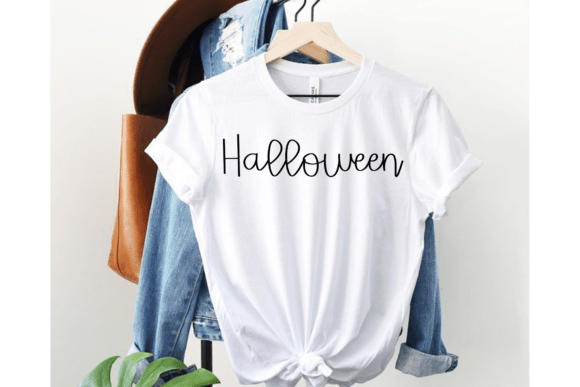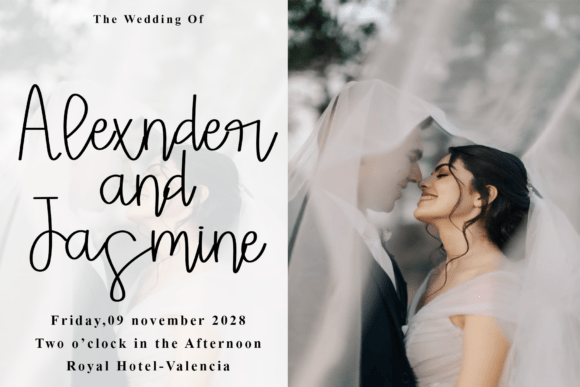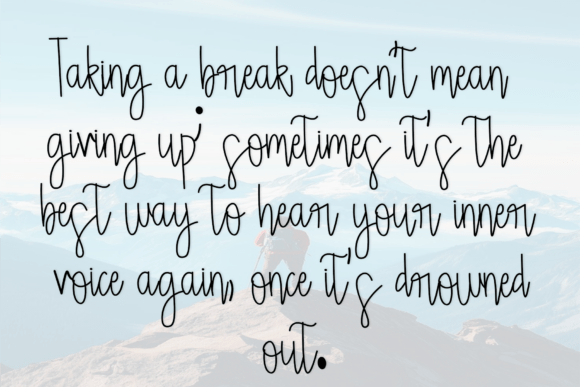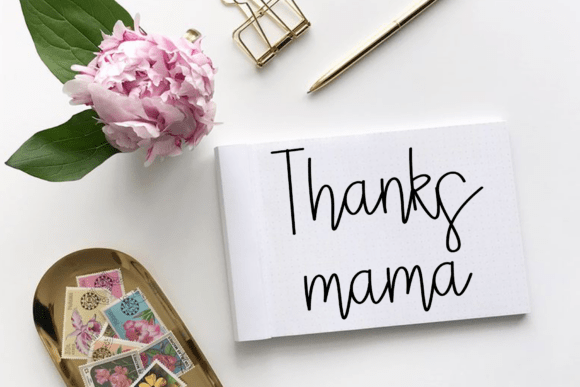
Introduction to Merr Bright Font Font Font
Fonts play a crucial role in design, and the Merr Bright Font Font font is a typeface that brings both character and versatility to any project. Whether you’re working on a branding project, a website, or a print design, the Merr Bright Font Font font offers a unique style that can elevate your work.
Discover the Merry Bright font, a captivating modern handwritten collection that combines a relaxed, flowing style with professional clarity.
This font features a thin, monoline stroke and tall, elegant ascenders and descenders, giving the letters a sophisticated and dynamic presence The slightly irregular baseline and organic connections mimic authentic penmanship, while its clean lines ensure excellent readability.
The Merr Bright Font Font font is more than just a typeface – it’s a design tool that helps you communicate your message with style and clarity. Its unique character set and versatile design make it suitable for a wide range of applications, from elegant invitations to bold headlines.
With its carefully crafted letterforms and balanced proportions, the Merr Bright Font Font font ensures readability and visual appeal across all mediums.
The Merr Bright Font Font font stands out with its unique design, exceptional readability, and versatility across various design applications.